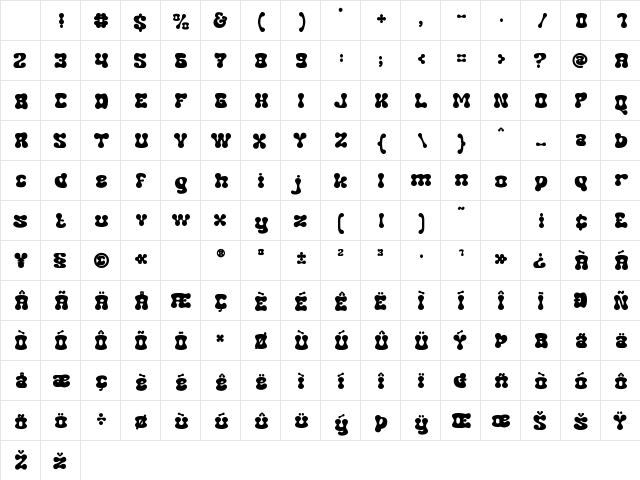
Funky Sign has an approachable, lighthearted character - its loose, expressive forms are well-suited to children's content, casual branding, and fun-first design.
Font Pairing: Pairs well with a rounded or humanist sans for body copy, maintaining the friendly tone without relying on Funky Sign to carry extended reading.
Pro Tip: Use Funky Sign at larger display sizes where its expressive character can land. Pair with a clean, simple sans for body copy to maintain readability.